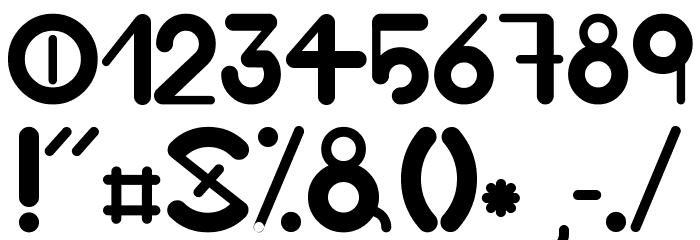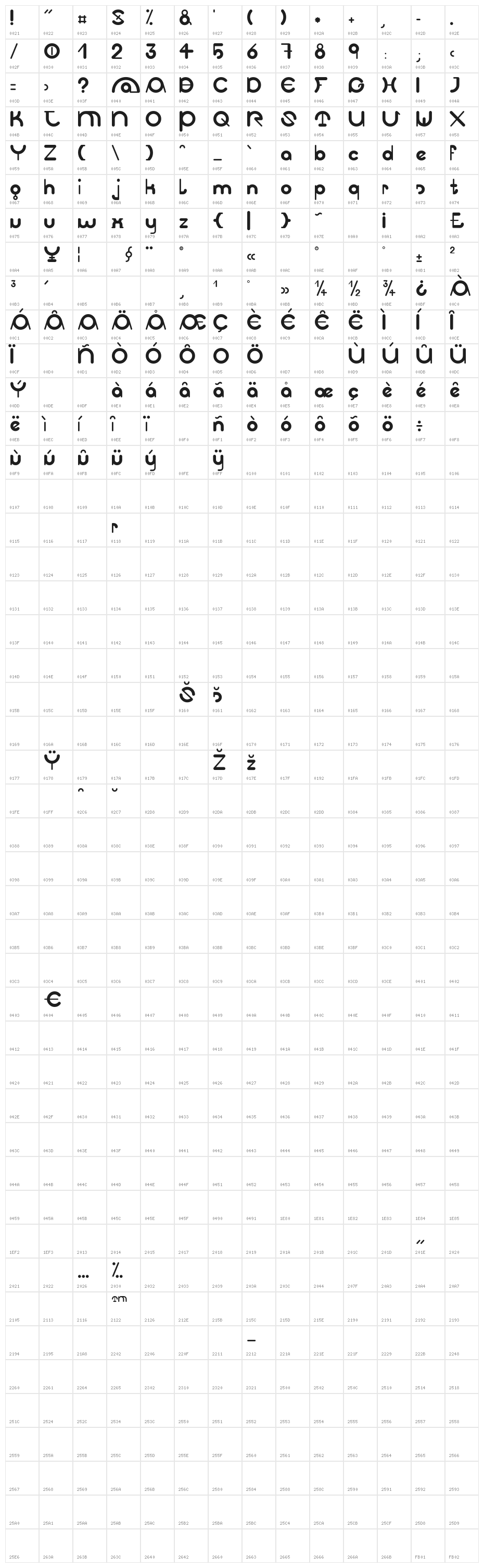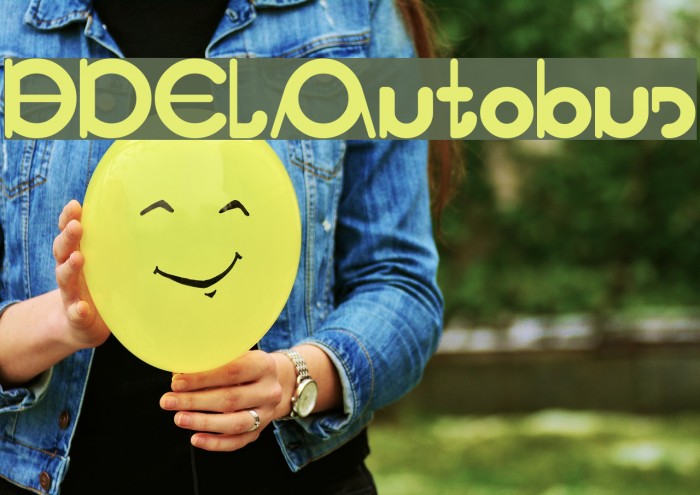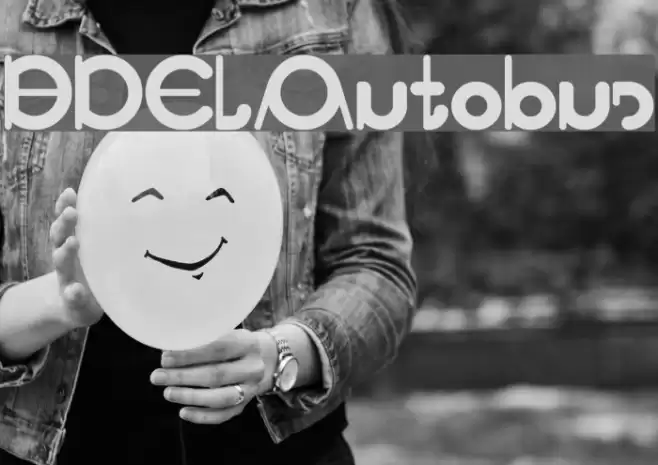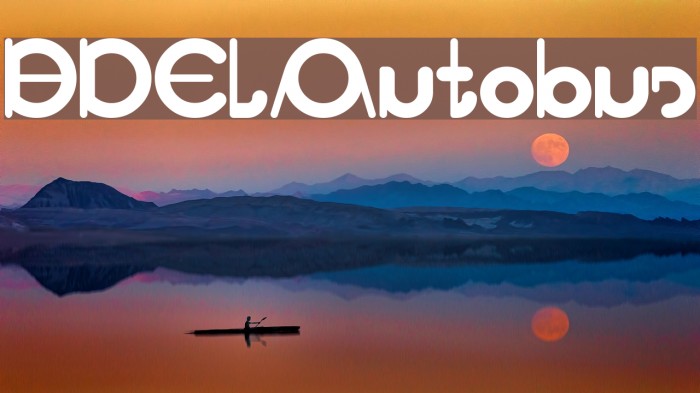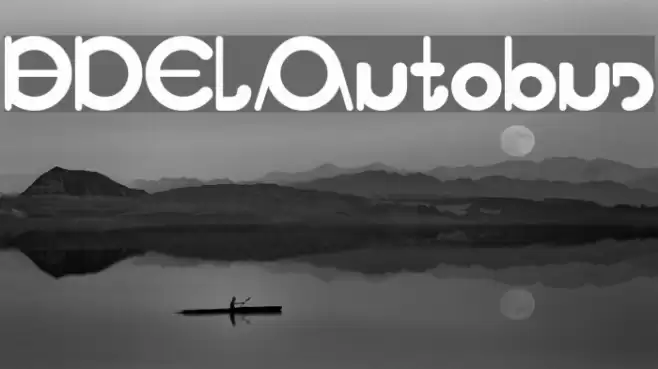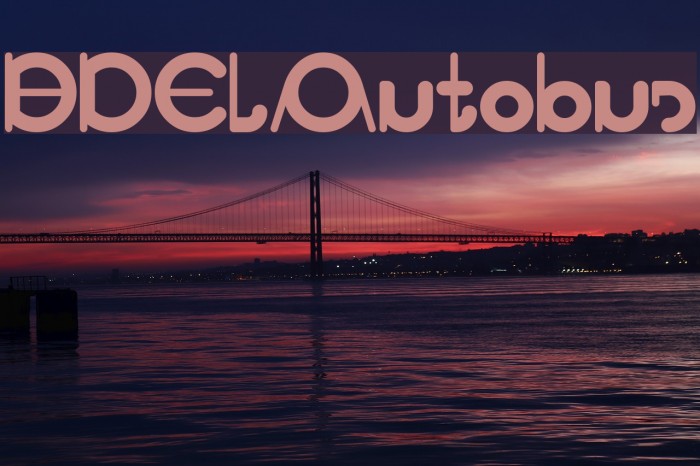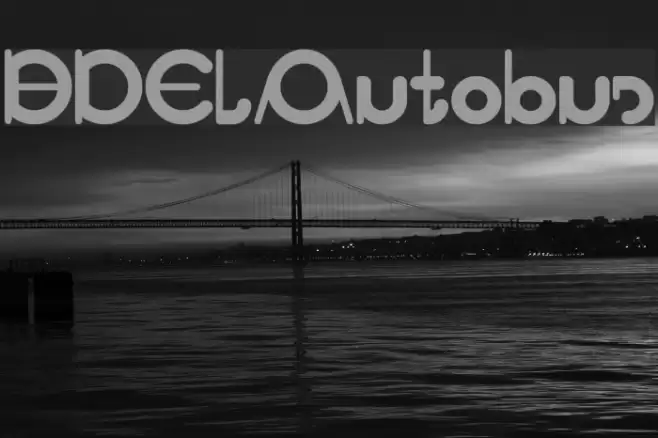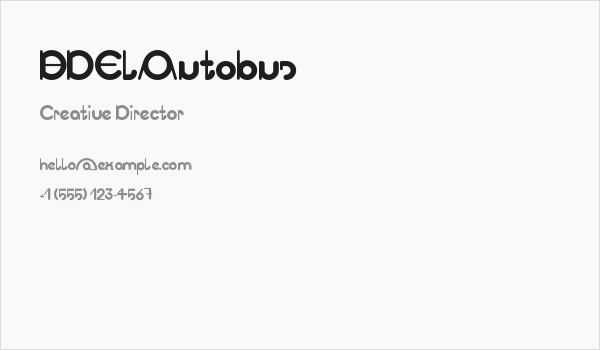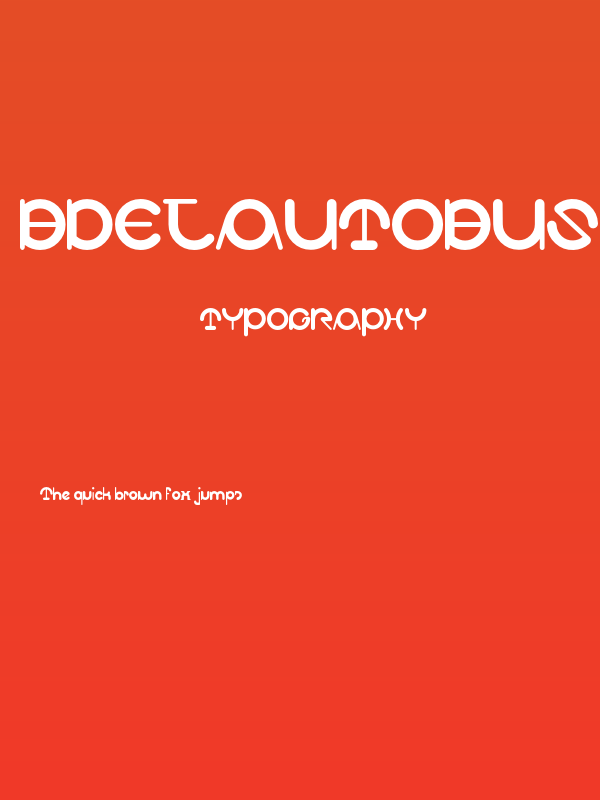
BDElAutobus Font
BDElAutobus Description
This font features a playful and rounded design with unique, quirky elements that give it a distinct personality. The characters are bold and have a consistent stroke width, creating a uniform appearance. The uppercase letters exhibit a mix of geometric and organic shapes, while the lowercase letters maintain a similar style with slight variations in form. Numbers and special characters are crafted to match the overall aesthetic, ensuring a cohesive look across all glyphs. The font's style is both modern and retro, making it versatile for various creative applications.
| Overall Style | Modern, Retro |
| Proposed Projects | Ideal for children's books, playful branding, posters, and creative digital content. |